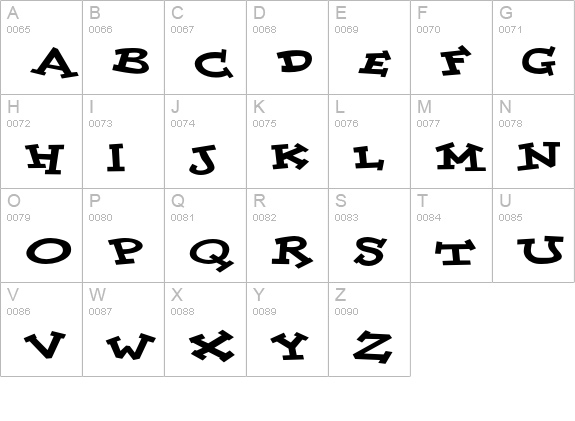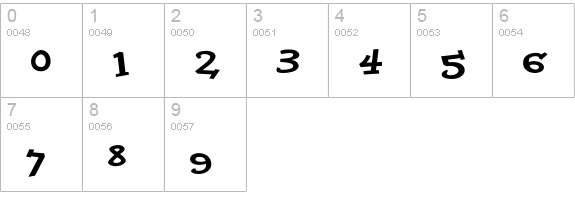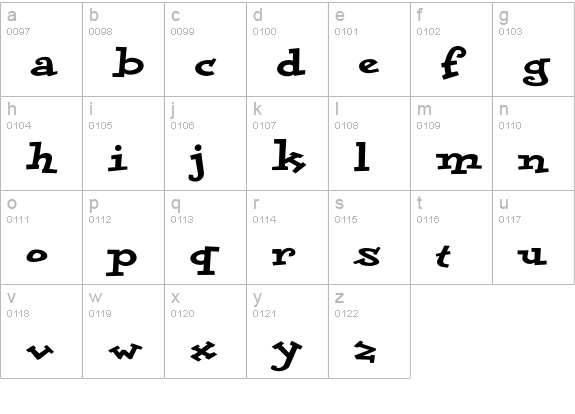
DoloresCyr-Black Font Details
DoloresCyr-Black is a maximum-weight, dramatic variant in the DoloresCyr typeface family \xE2\x80\x94 well suited to maximum-impact headlines, posters, and packaging.
DoloresCyr-Black is a striking and elegant font that exudes sophistication and charm. Its bold and distinctive letterforms make it perfect for creating eye-catching headings, titles, and logos. The unique design of DoloresCyr-Black sets it apart from other fonts, making it a versatile choice for a wide range of design projects. What makes DoloresCyr-Black even more appealing is that it is available for free download at FontsMarket.com. This means you can easily add this gorgeous font to your collection without any cost. Whether you're a designer, blogger, or business owner, DoloresCyr-Black is sure to elevate your projects and leave a lasting impression on your audience. Download this stunning font today and let your creativity shine with DoloresCyr-Black.